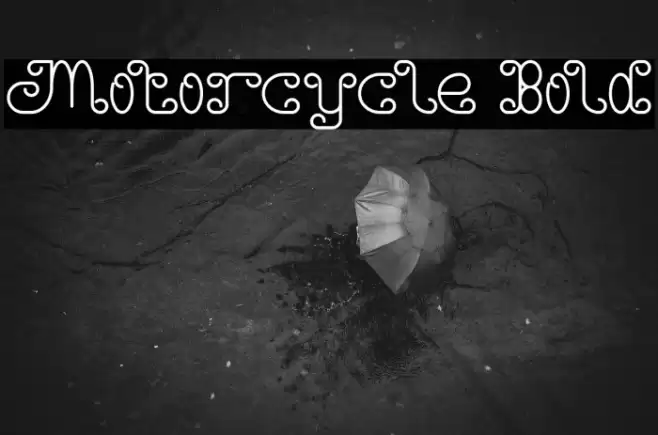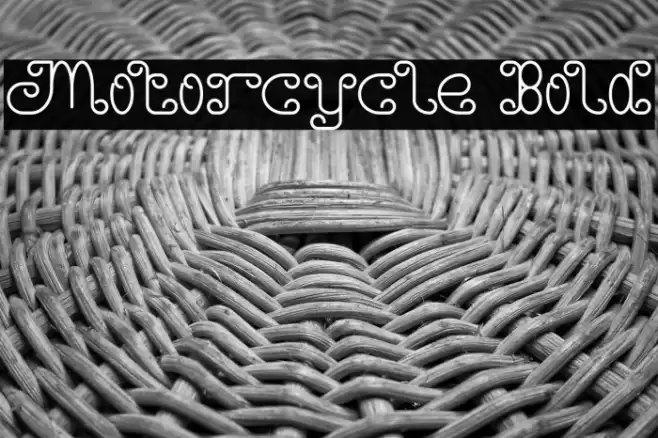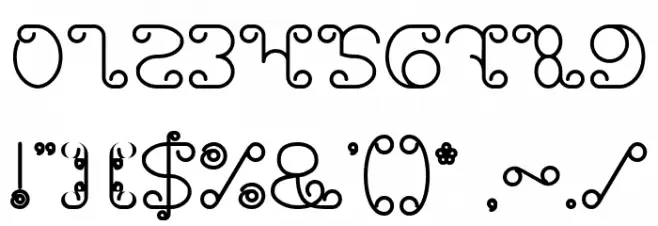
Motorcycle Bold Font
Motorcycle Bold Description
This font features a unique and playful design with a decorative flair. Each character is crafted with a series of loops and curves, giving it a whimsical and artistic appearance. The uppercase and lowercase letters maintain a consistent style, with rounded edges and intricate detailing. Numbers and special characters follow the same design principles, ensuring a cohesive look across all glyphs. The font's distinctiveness makes it stand out, ideal for creative and eye-catching designs.
A whimsical and decorative font with loops and curves from Uncategorized fonts.
- Proposed Projects: Perfect for children's books, playful branding, creative posters, and artistic invitations.
- Use Case: Logos, Posters, Invitations